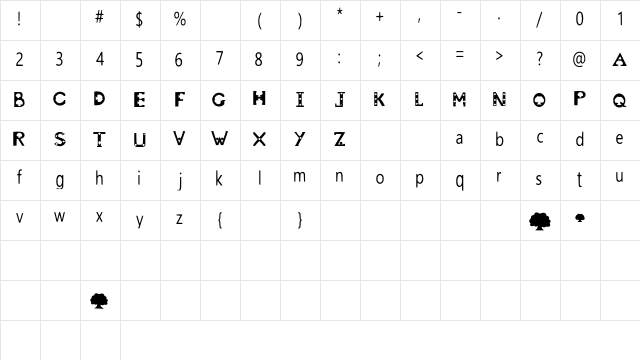
Odaa_Oromo_Font Medium Font Preview
Odaa_Oromo_Font Medium
Odaa_Oromo_Font Medium Font Details
Design Context for Odaa_Oromo_Font Typeface
Odaa_Oromo_Font takes a measured approach to typography — its balanced proportions and neutral character make it a reliable workhorse for both digital and print work.